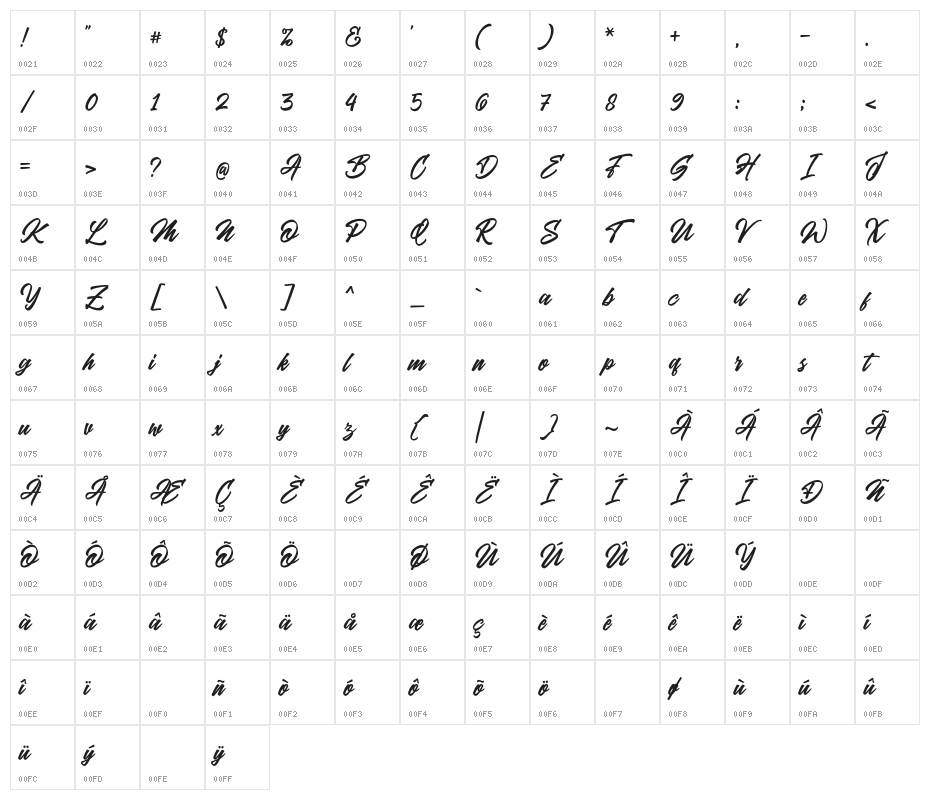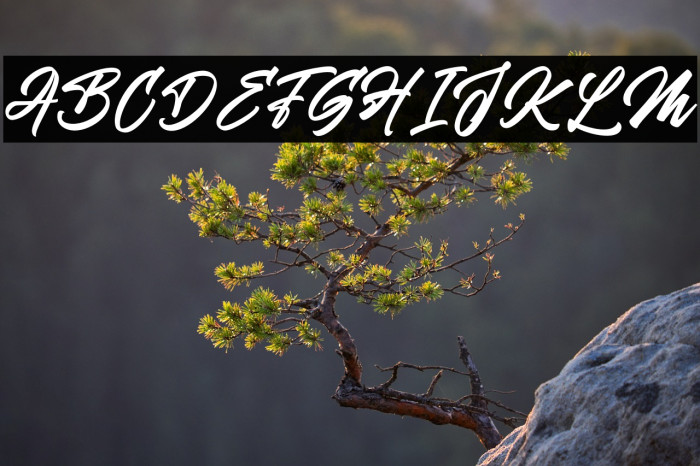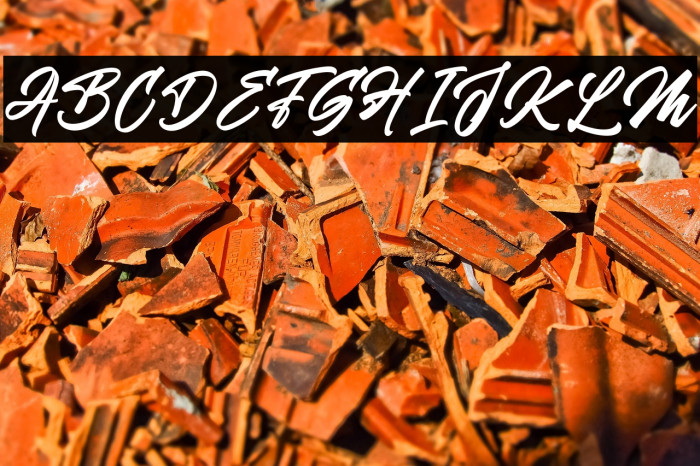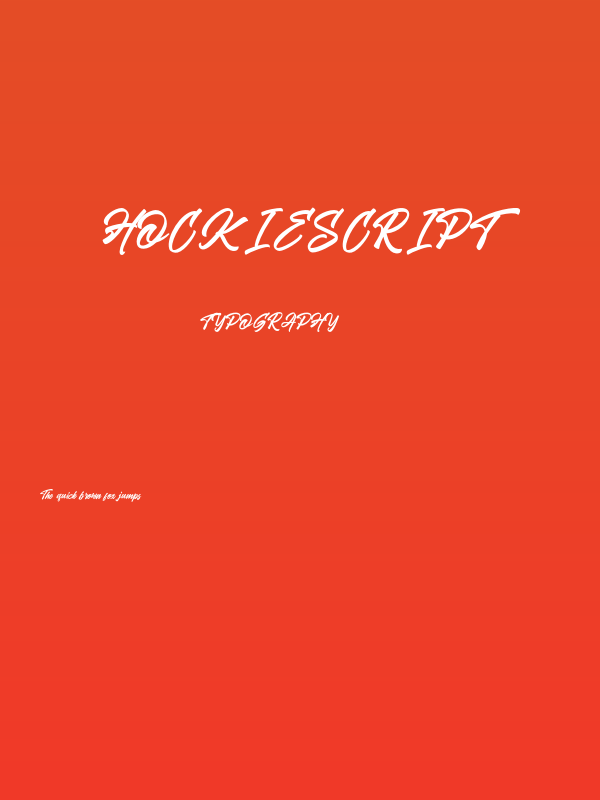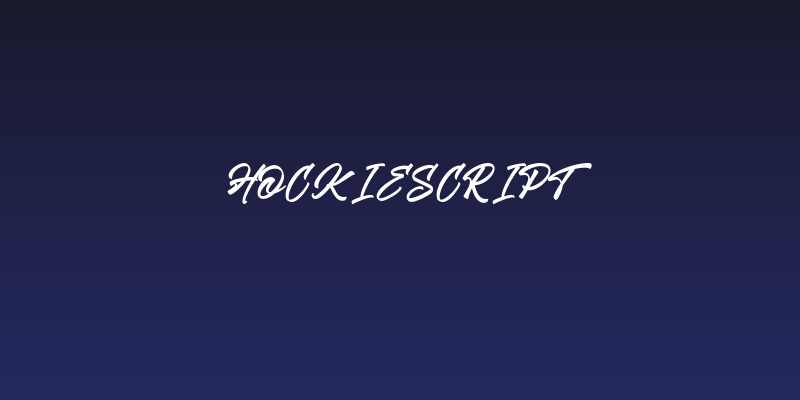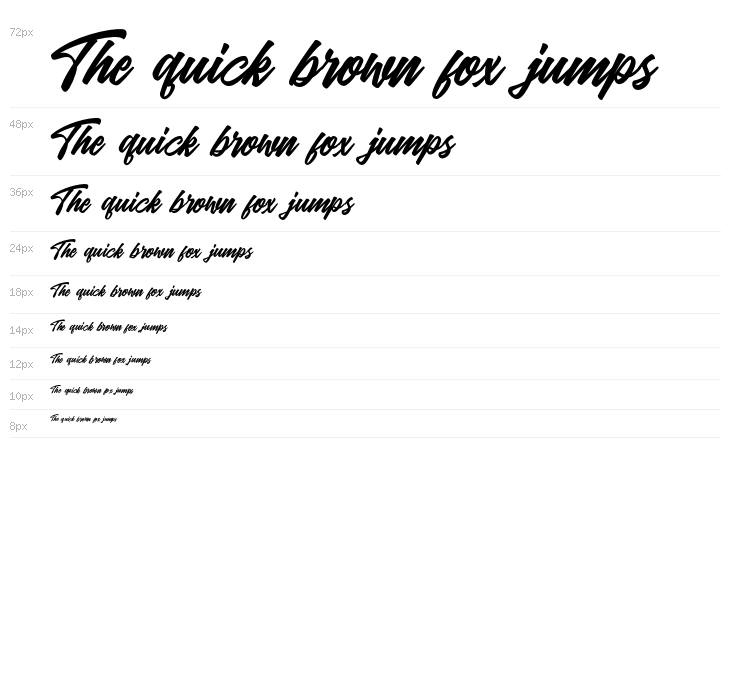
HockieScript Font
✎ Script
HockieScript Description
This font exudes a dynamic and energetic script style, characterized by its fluid and cursive letterforms. The strokes are bold and confident, with a slight slant that adds to its lively appearance. The uppercase letters are particularly striking, with sweeping curves and elegant loops that give them a sense of motion. The lowercase letters maintain a consistent flow, complementing the uppercase with their rounded and connected forms. Numbers and special characters are crafted with the same attention to detail, ensuring a cohesive look across all elements. This font is perfect for projects that require a personal and expressive touch, such as invitations, branding, and creative designs.
| Use Case | Logos, Headlines, Invitations |
| Proposed Projects | Ideal for invitations, branding, creative designs, and expressive typography projects. |